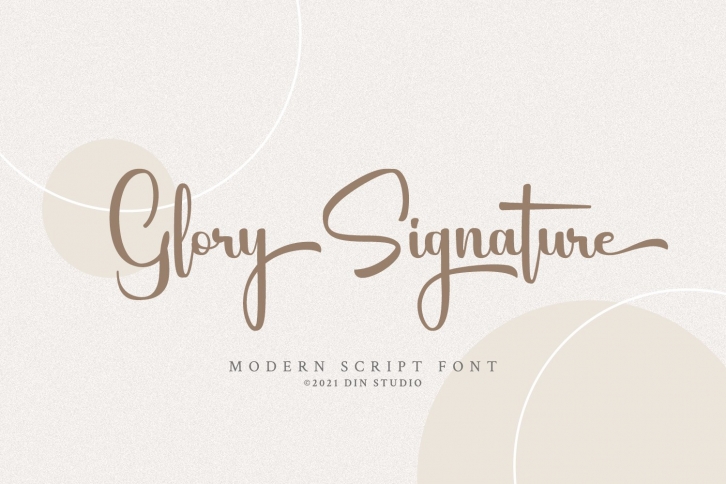
Glory Signature is a great font that was designed by Din Studio. Imagine the amount of combinations you can create using this font! The archive is 17.9 MB and it was released on March 8, 2021. Glory Signature looks beautiful on wedding invitations, greeting cards, logos, posters, labels, t-shirt designs, logos, business cards and is perfect for use in ink or watercolor works, fashion, magazines, packaging and food menus, children's books and more!